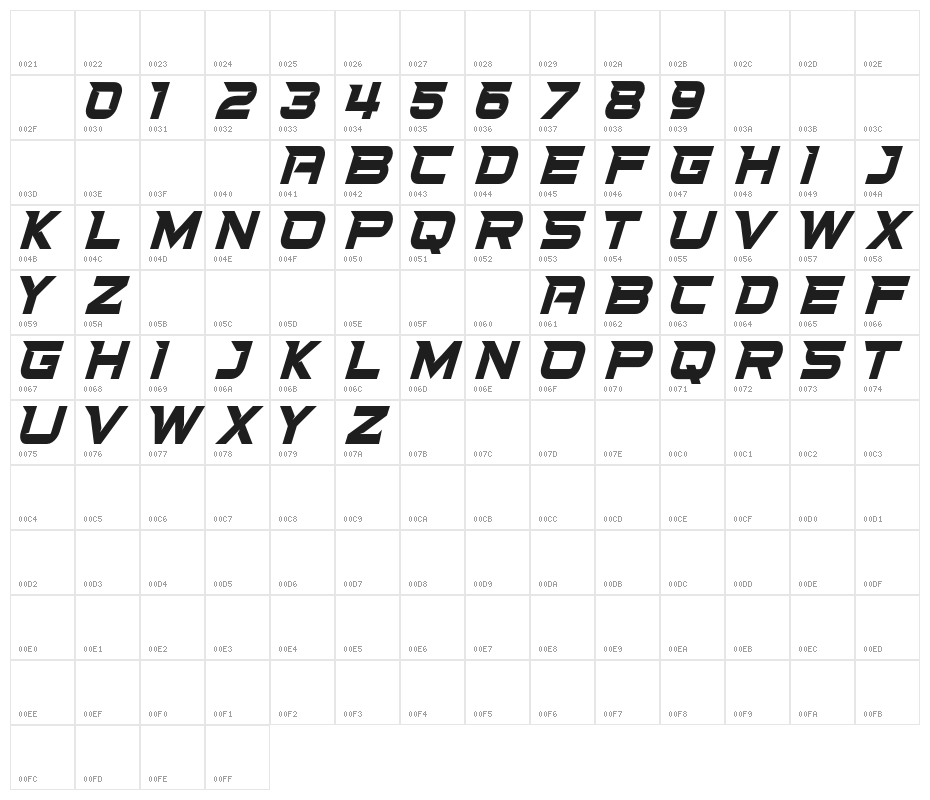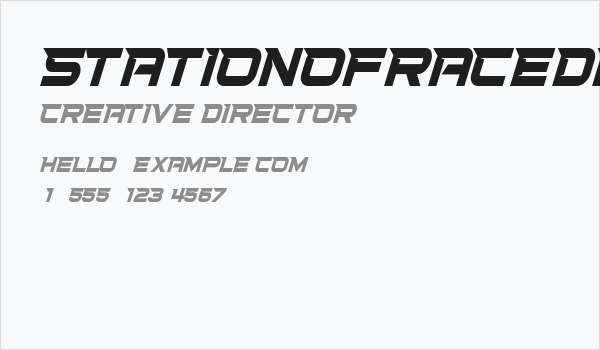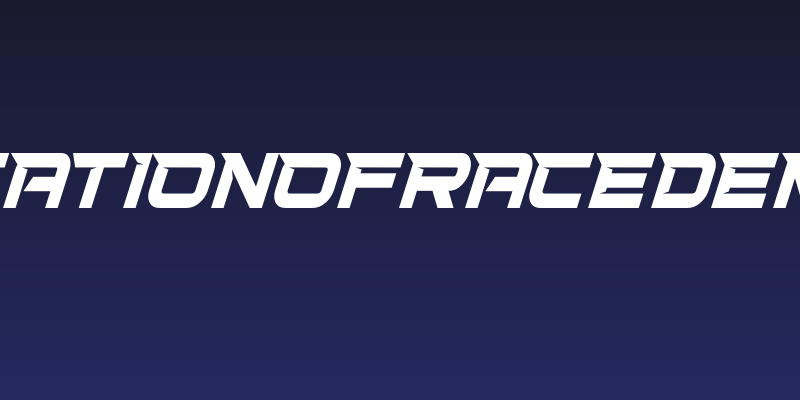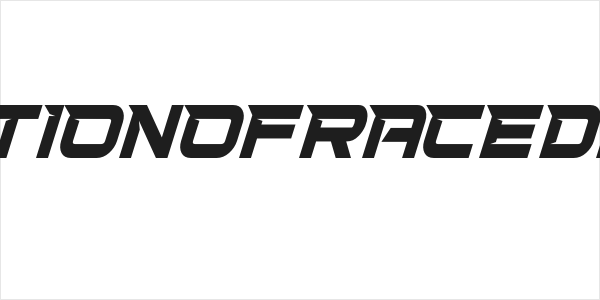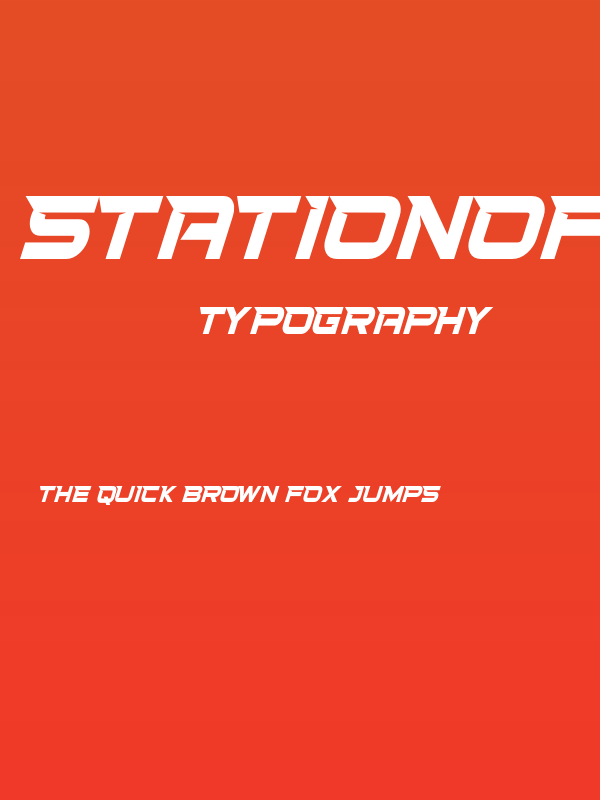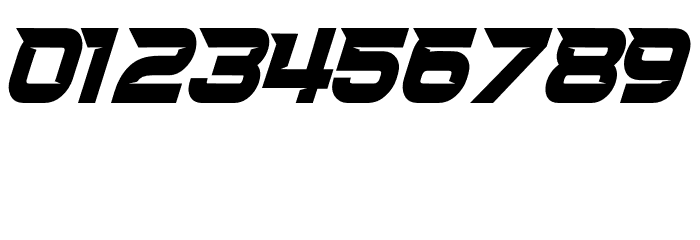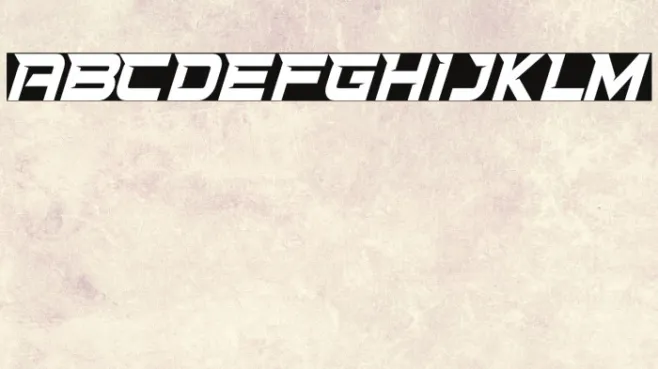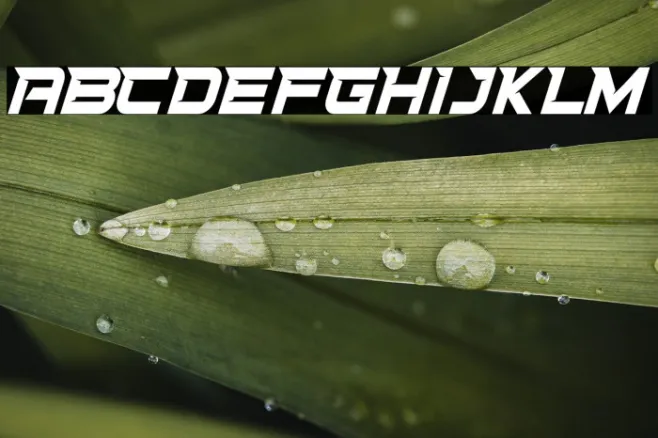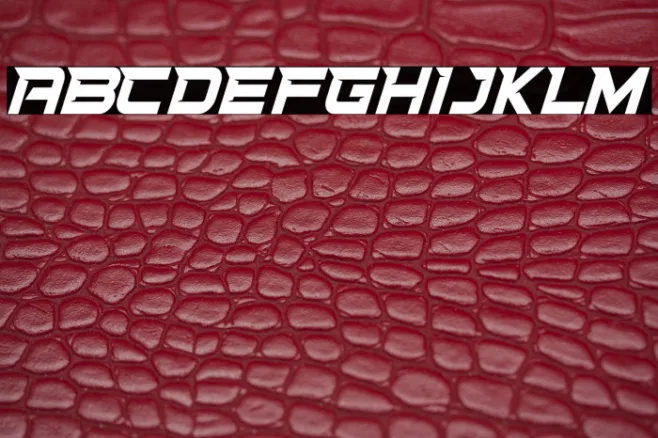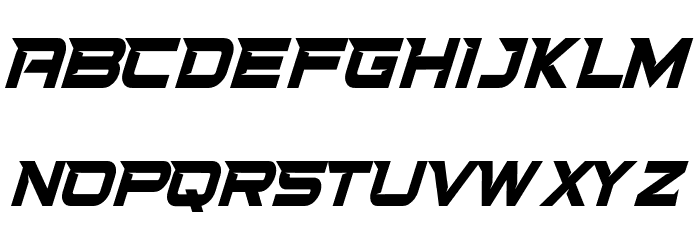
STATIONOFRACEDEMO Font
STATIONOFRACEDEMO Description
This font features a bold and dynamic style with a strong, angular design that conveys a sense of speed and modernity. The characters are slanted, giving them a forward-moving appearance, which is enhanced by the sharp edges and clean lines. The uppercase letters are uniform in height, while the numerals maintain a consistent style, ensuring readability. The overall design is sleek and futuristic, making it suitable for projects that require a contemporary and energetic look.
| Use Case | Logos, Headlines |
| Proposed Projects | Ideal for automotive branding, sports team logos, technology product packaging, and video game titles. |